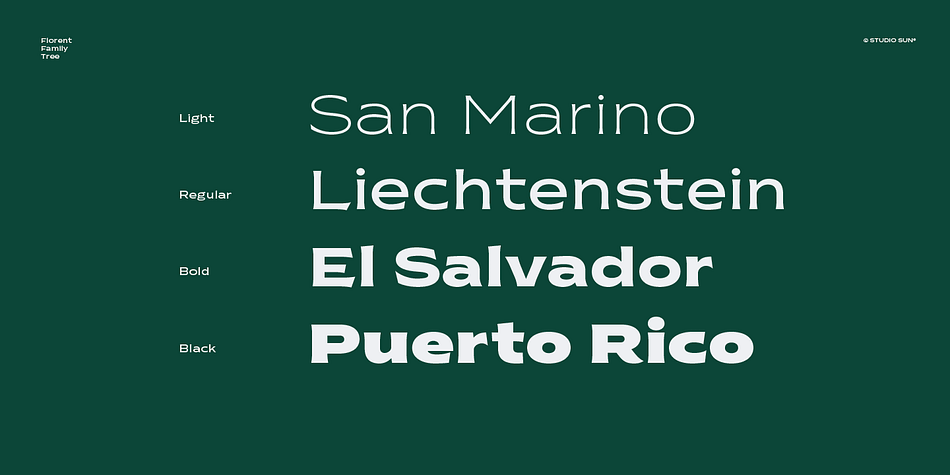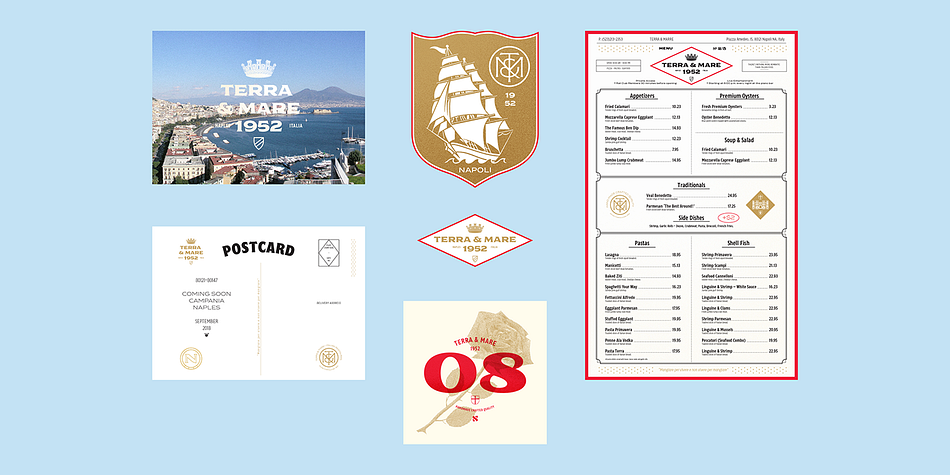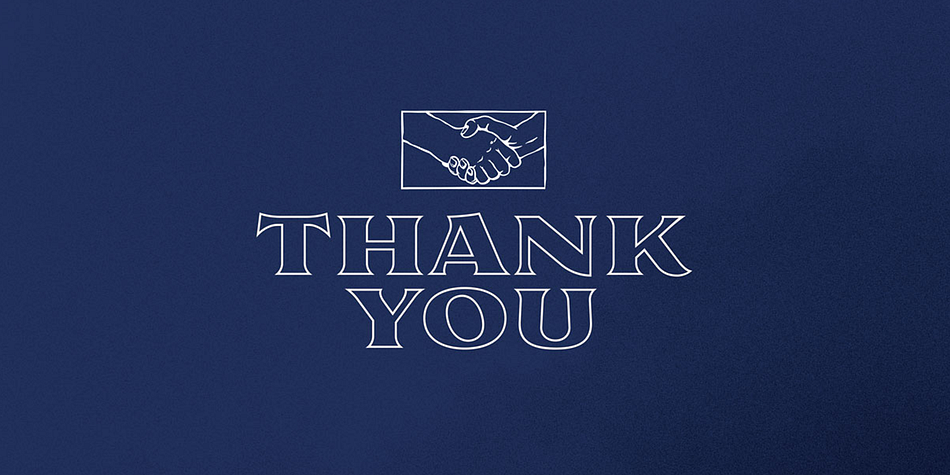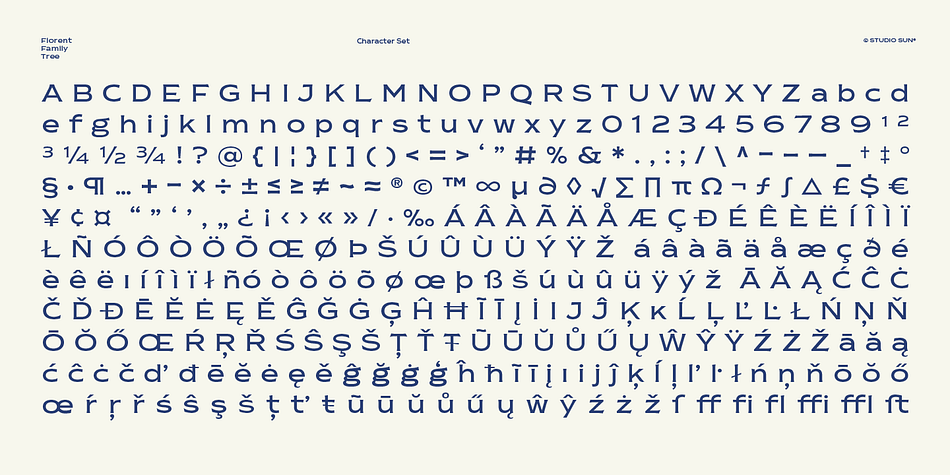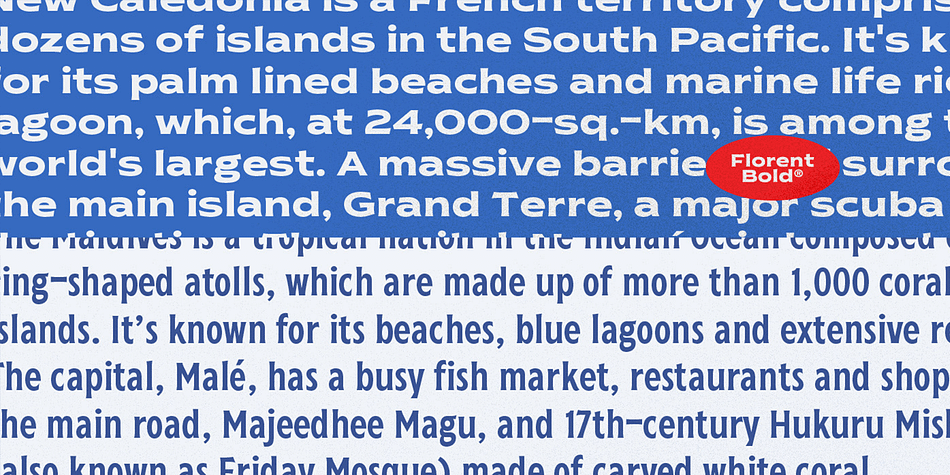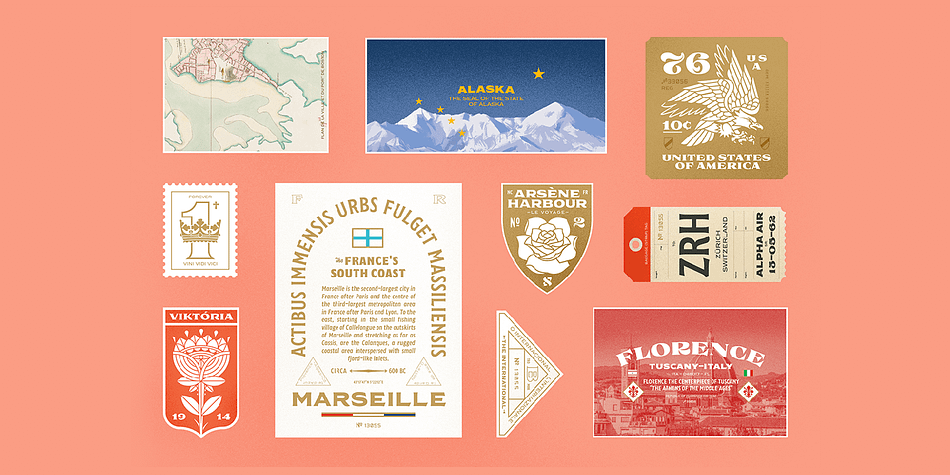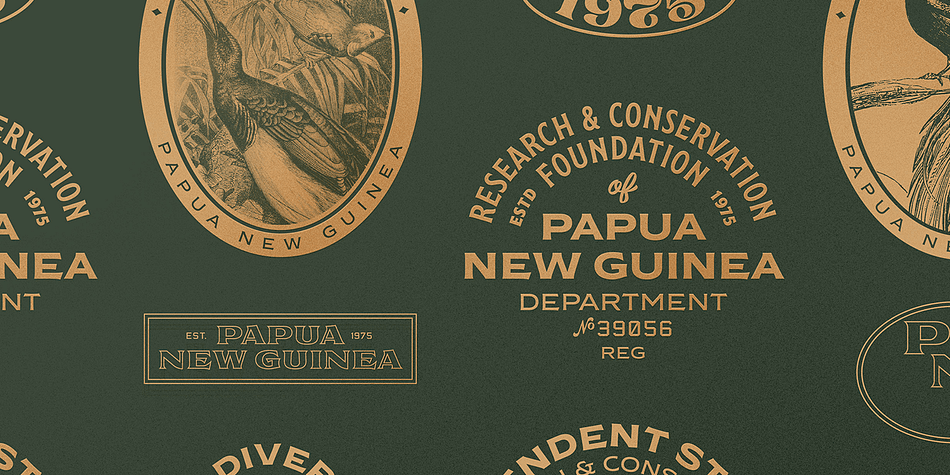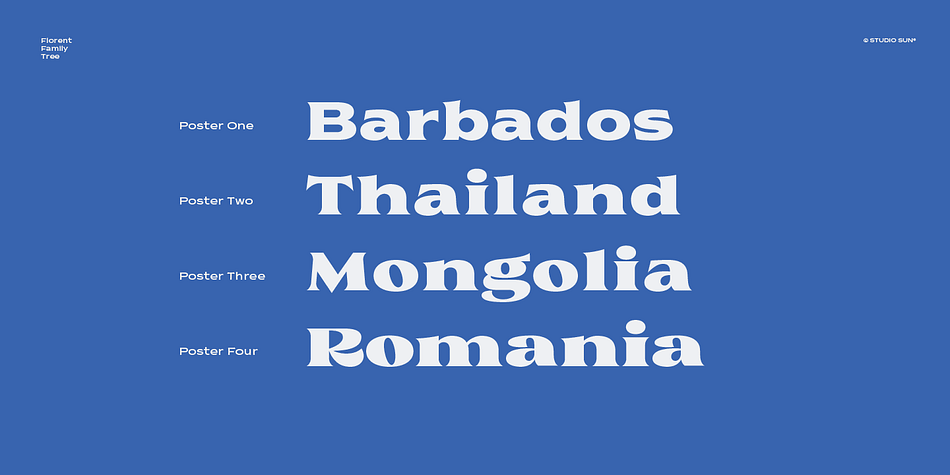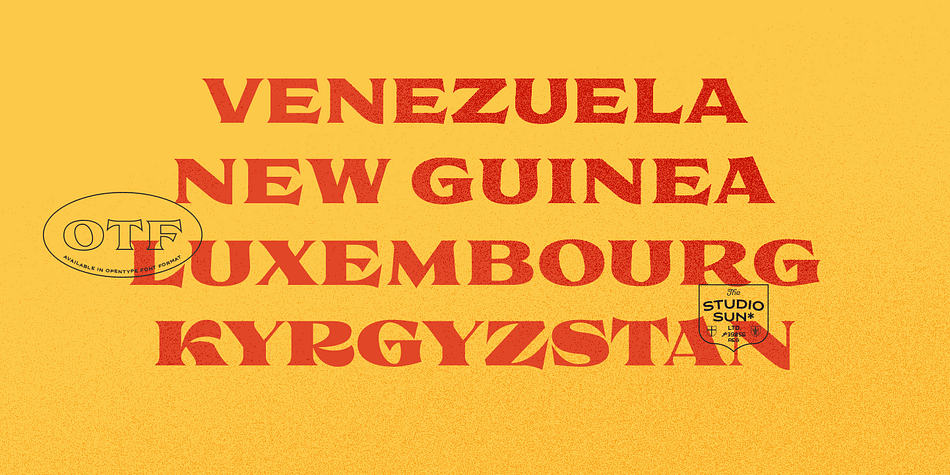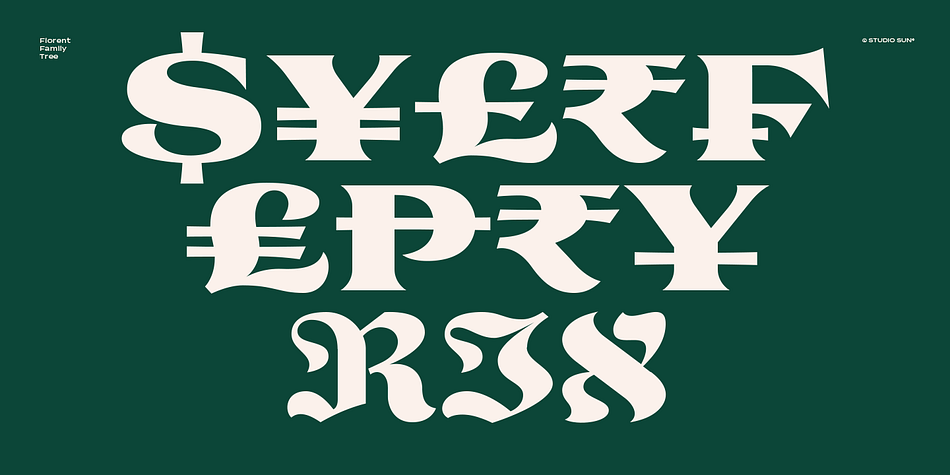
Designed by Cahya Sofyan, Florent is a display serif and dingbat font family. This typeface has twenty-one styles and was published by Studio Sun.
Florent is a collection of serif typefaces inspired by The Revolution of Printing in the early 1500 (15th Century) when the early print advertisements were used mainly to promote books or other print (such as; hotel luggage label, beer label, packaging, flyer/poster, ticket, etc.) which became increasingly affordable with advances in the printing press, the printing press spread within several decades to over two hundred cities in a dozen European countries.Florent family comes in 2 model; Display Text and Display Face. The typefaces designed on traditional geometric construction with little details serif. it was represents the letterpress printing era.
Display text available in 2 version Condensed (3 Weight; Light, Regular and Bold) and Semi Extended (4 Weight; Light, Regular, Bold and Black), Matches with alternate ligatures.
Display Faces available in 4 version, the different between these fonts are the contrast on the vertical optical. it will suitable to make display appearance such as logotype, headline, signage, etc. Plus extras symbol (Math/Greek) and Words Graphics (Catchwords).